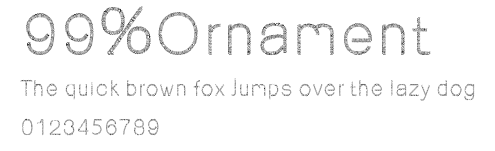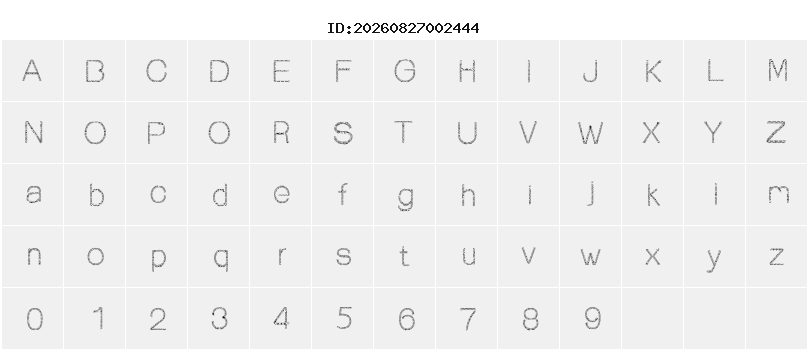
• Font Name: 99%Ornament
• Designer: Habib Shaikh
About 99%Ornament.otf
99%Ornament.otf is a modern, elegant sans-serif font designed for ultimate readability and visual harmony. Perfect for branding, headlines, web design, and print materials.